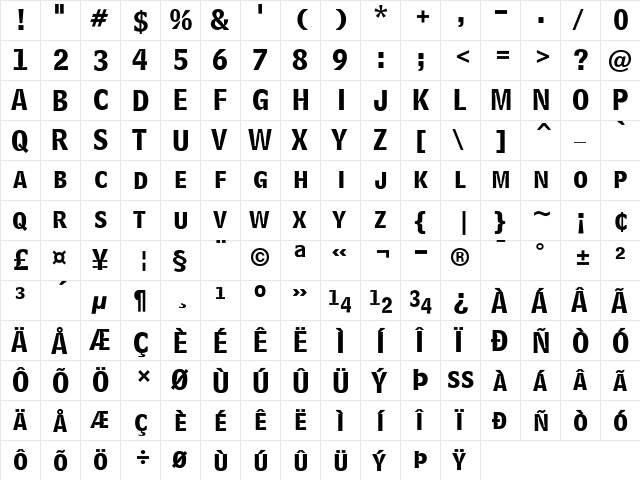
Bell Centennial BoldListingAlt Regular
Design Context for Bell Centennial BoldListingAlt Typeface
Bell Centennial BoldListingAlt offers clean, dependable letterforms without strong stylistic allegiance, making it a practical choice for designers who need flexibility. Its bold stroke weight gives it real presence on the page.